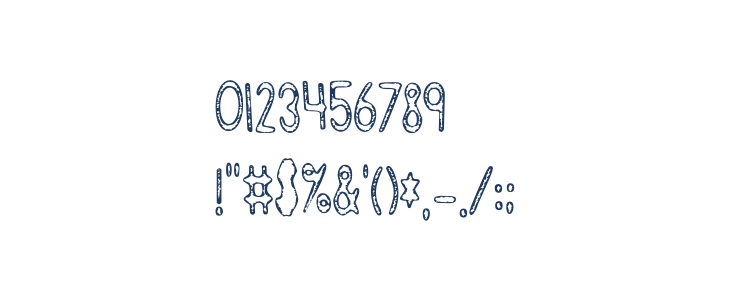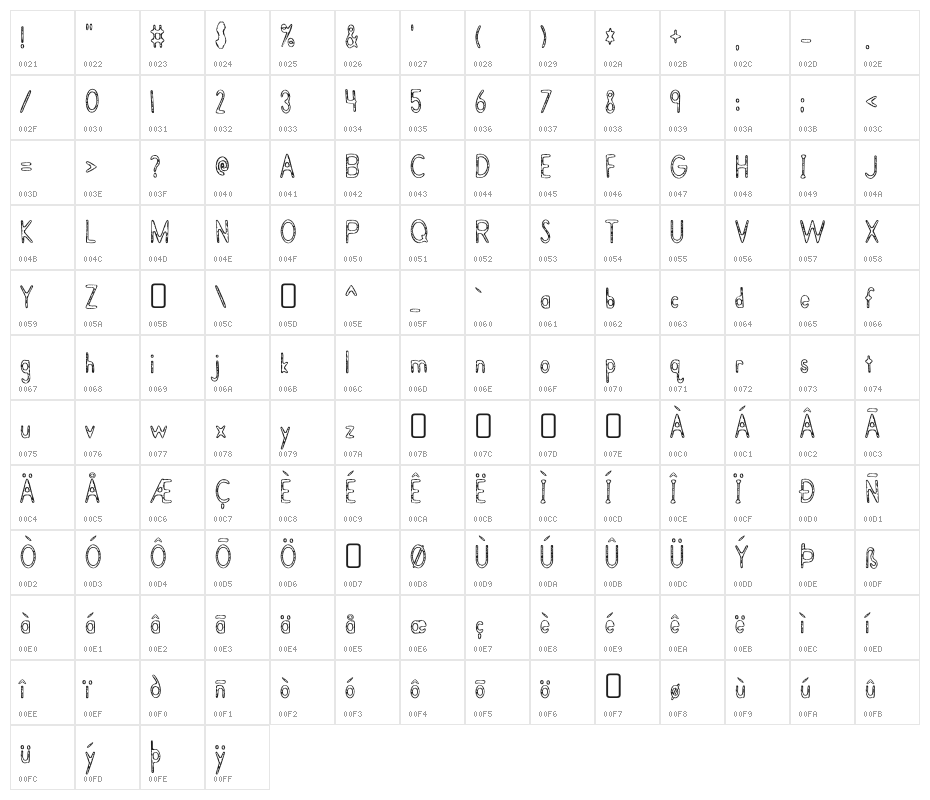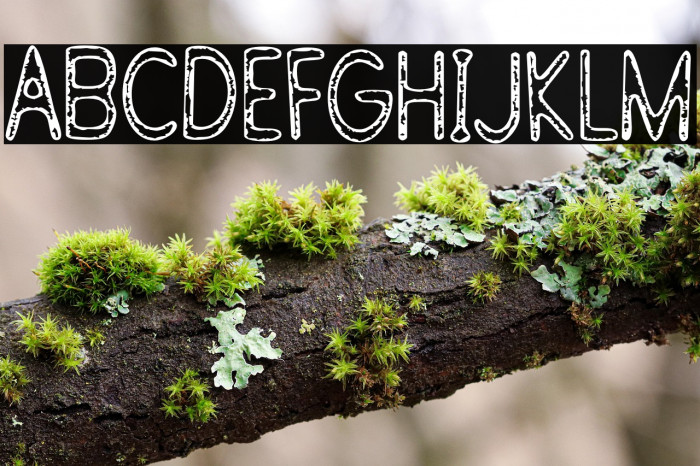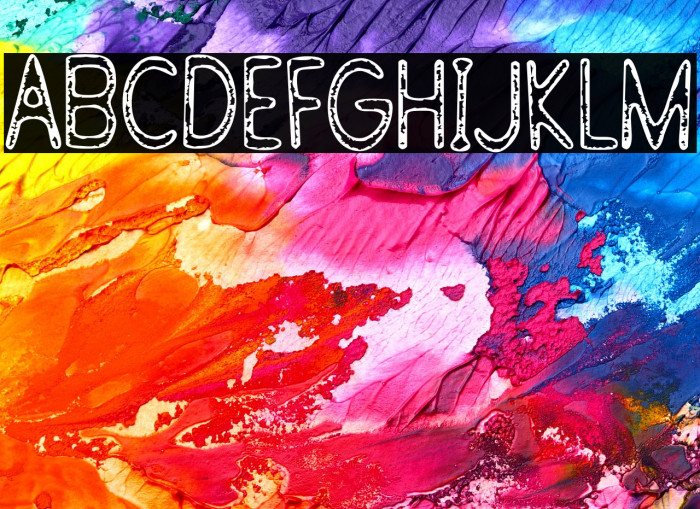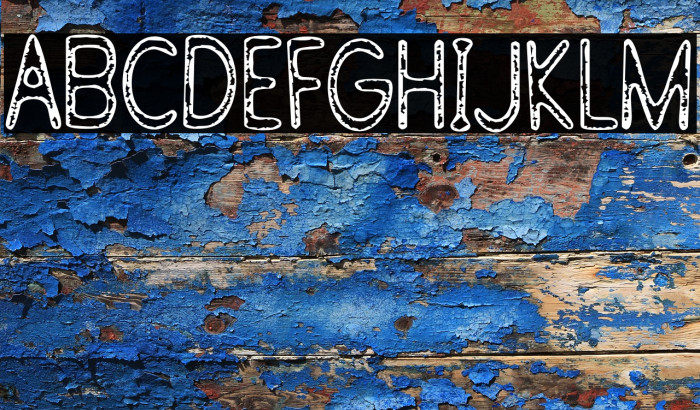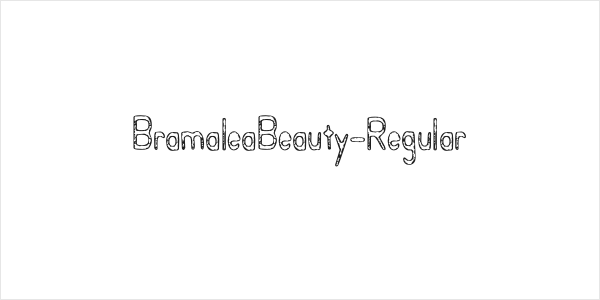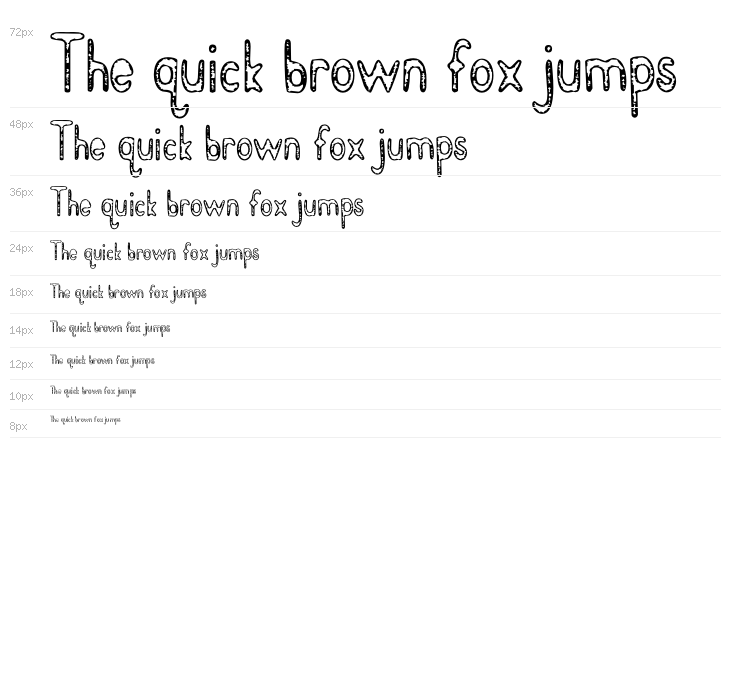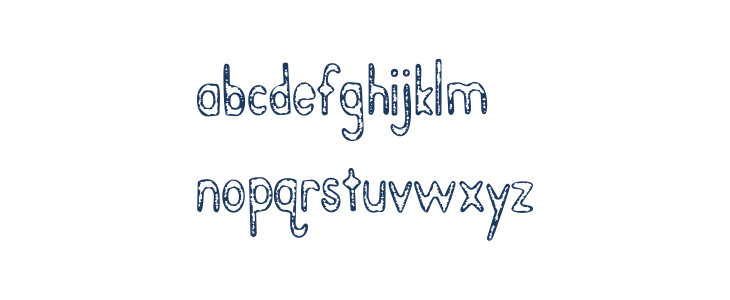
BramaleaBeauty-Regular Font
BramaleaBeauty-Regular Description
This font features a playful and textured style, characterized by its hand-drawn appearance. The letters have a slightly irregular outline, giving them a whimsical and artistic feel. The uppercase and lowercase letters maintain a consistent design, with rounded edges and a slightly distressed look. Numbers and special characters follow the same aesthetic, making the font suitable for creative and informal projects. The overall design is eye-catching and unique, perfect for adding a touch of personality to any text.
| Proposed Projects | Ideal for children's books, greeting cards, posters, and creative branding projects. |